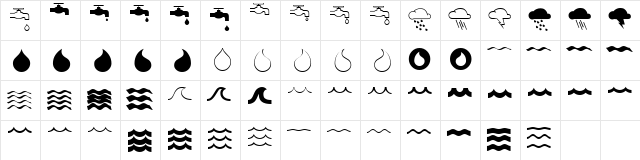
WaterFont Regular Font Preview
WaterFont Regular
Design Context for WaterFont Typeface
WaterFont is a composed and adaptable typeface that performs quietly and consistently across a wide range of design contexts.